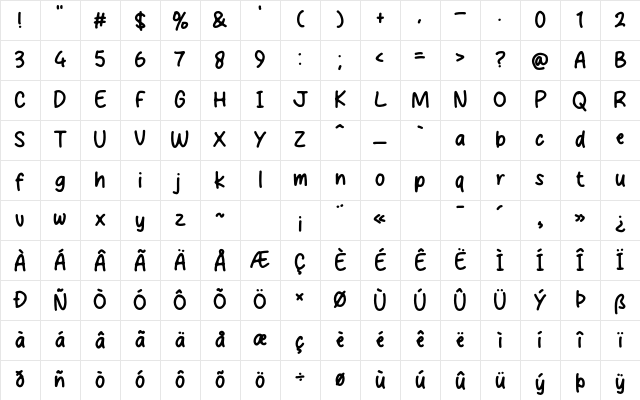
Sweety Yamy Regular Free Font
Sweety Yamy Regular
Design Context for Sweety Yamy
Sweety Yamy is a composed and adaptable typeface that performs quietly and consistently across a wide range of design contexts.